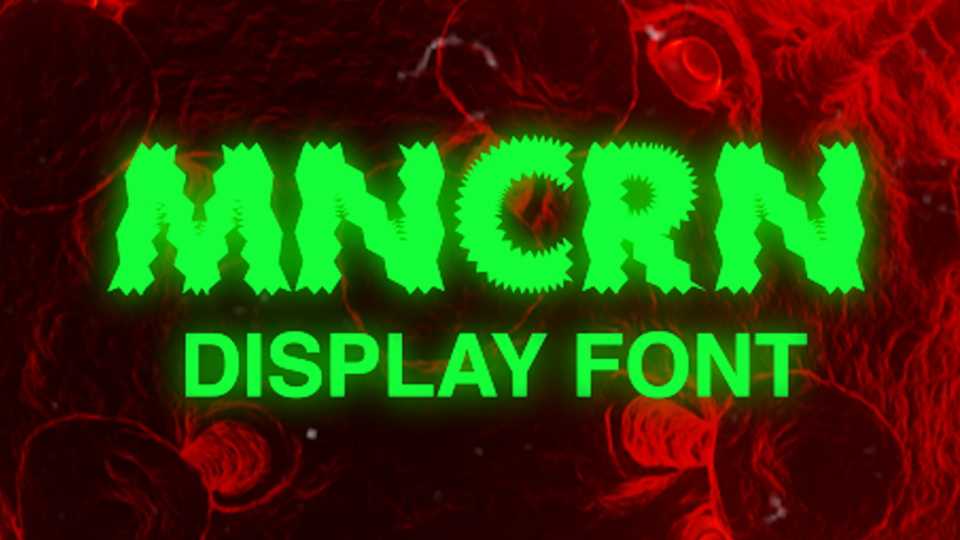
Download MNCRN font, a unique new display typeface highly inspired by modern society, the omicron virus. MNCRN font can be used to create big headlines, album covers, posters, logos, print design, video, vlog or something that you love.